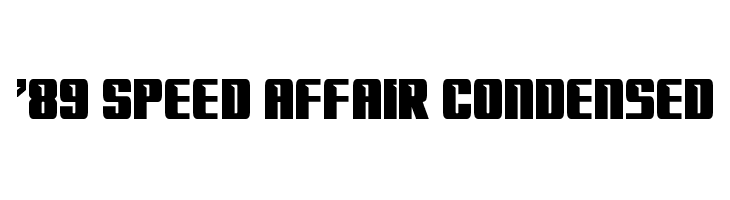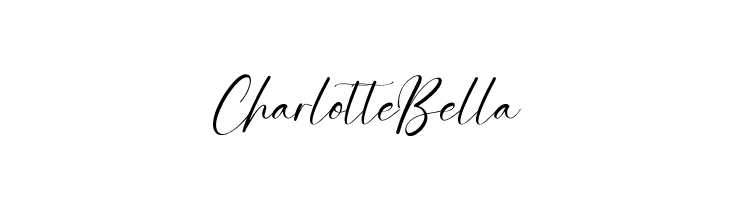
A bold, condensed geometric font with strong, blocky characters.
A dynamic and elegant script font with flowing curves and artistic flair.
A bold, playful handwritten font with rounded edges and consistent thickness.
A modern, angular italic font with geometric precision.
A bold, playful display font with retro cut-out details.
A graceful script font with flowing, interconnected letters.
A bold, left-slanted font with tight spacing and dynamic style.
A bold, modern sans-serif font with clean lines and strong readability.
A bold, expressive script font with a hand-drawn, artistic style.
A modern, geometric sans-serif font with clean lines and a sleek appearance.